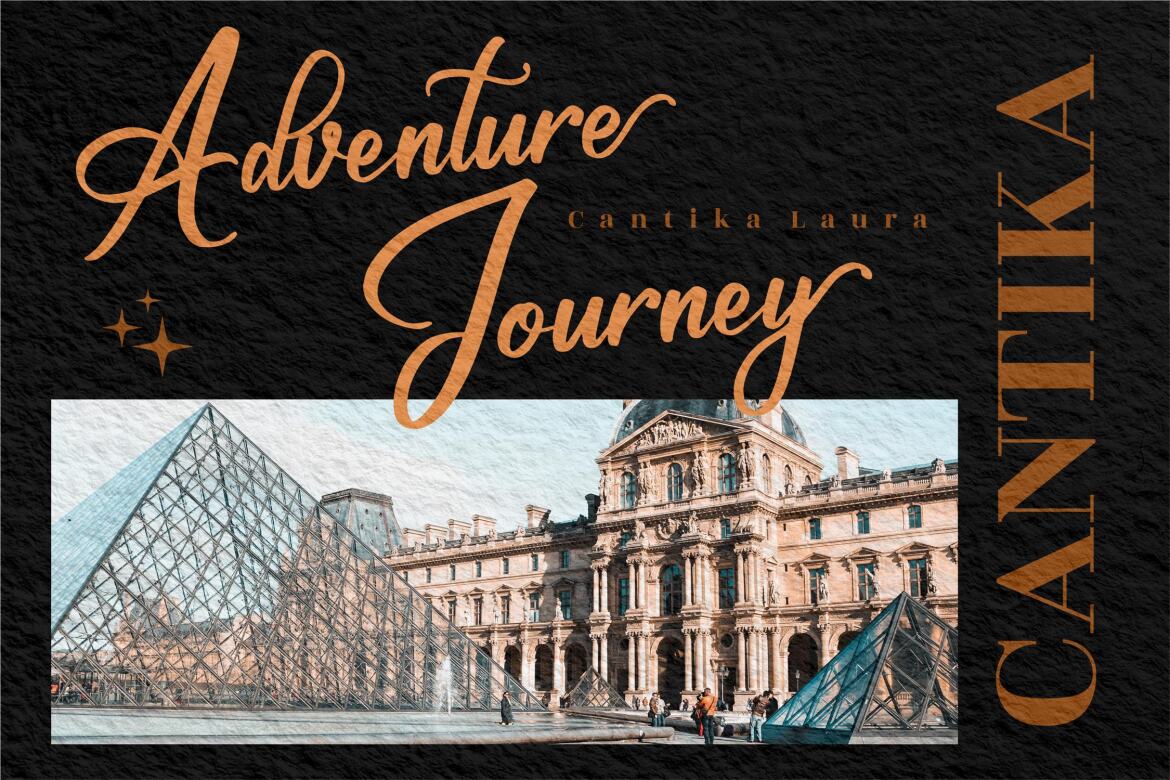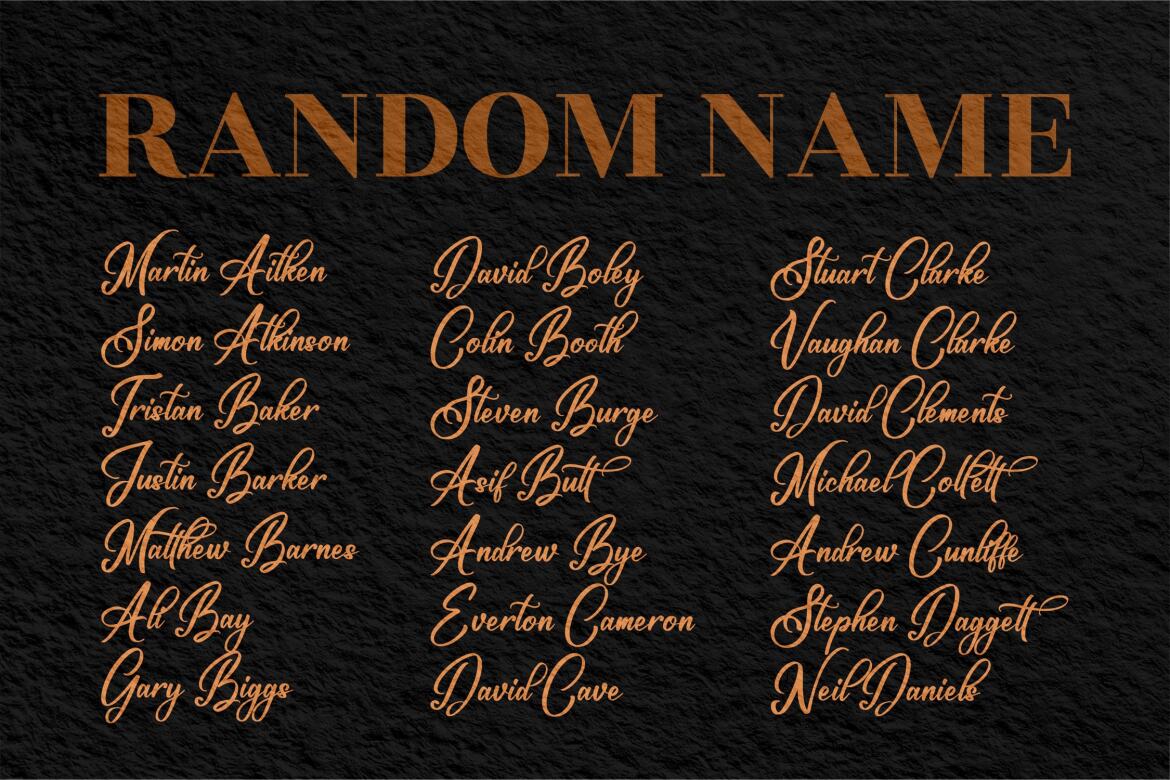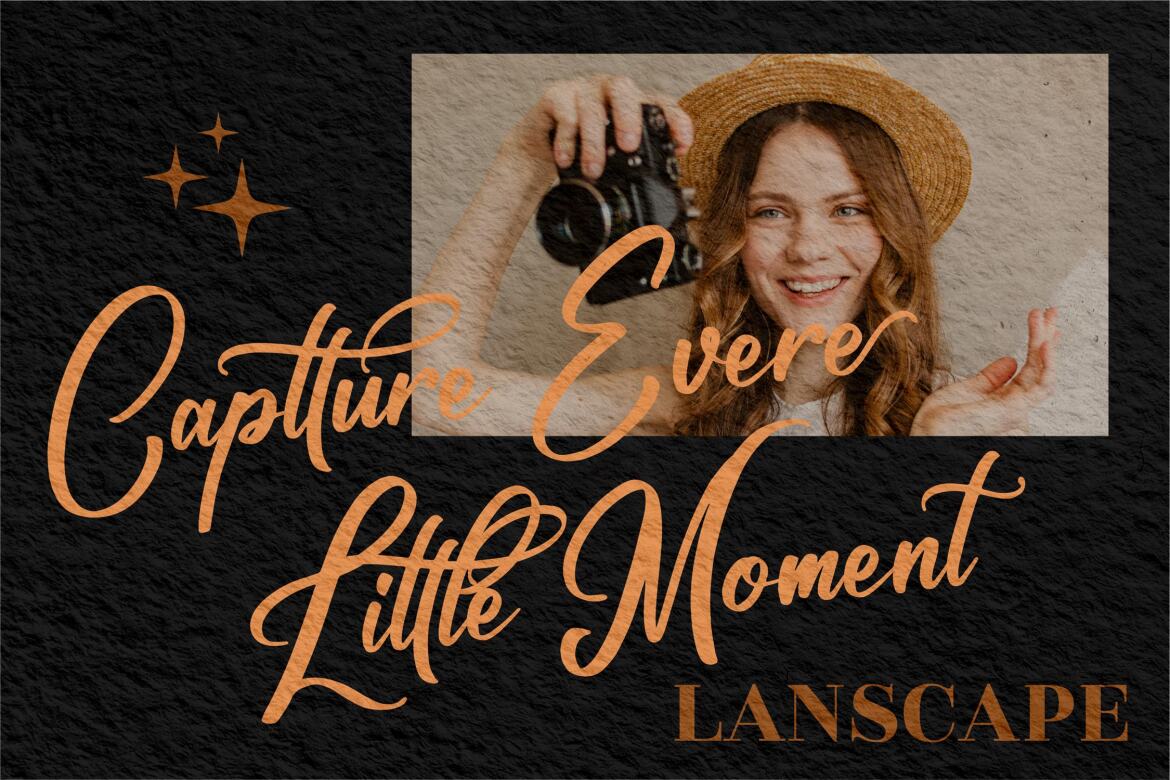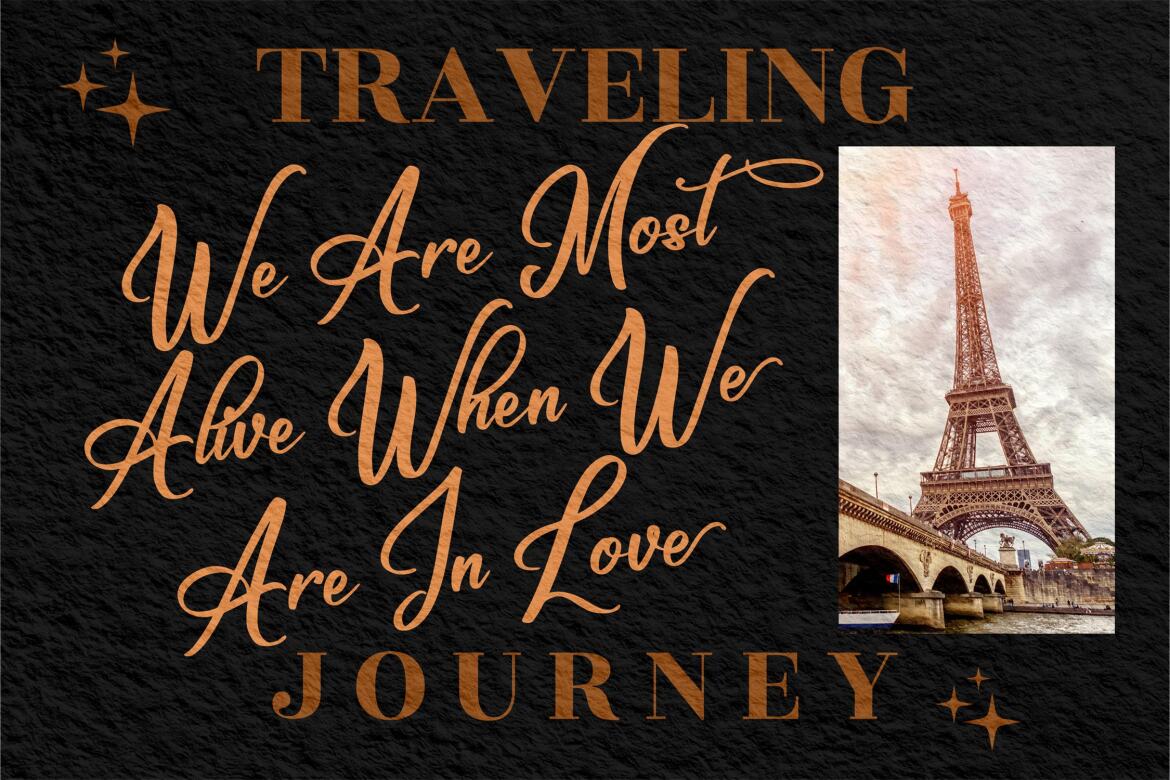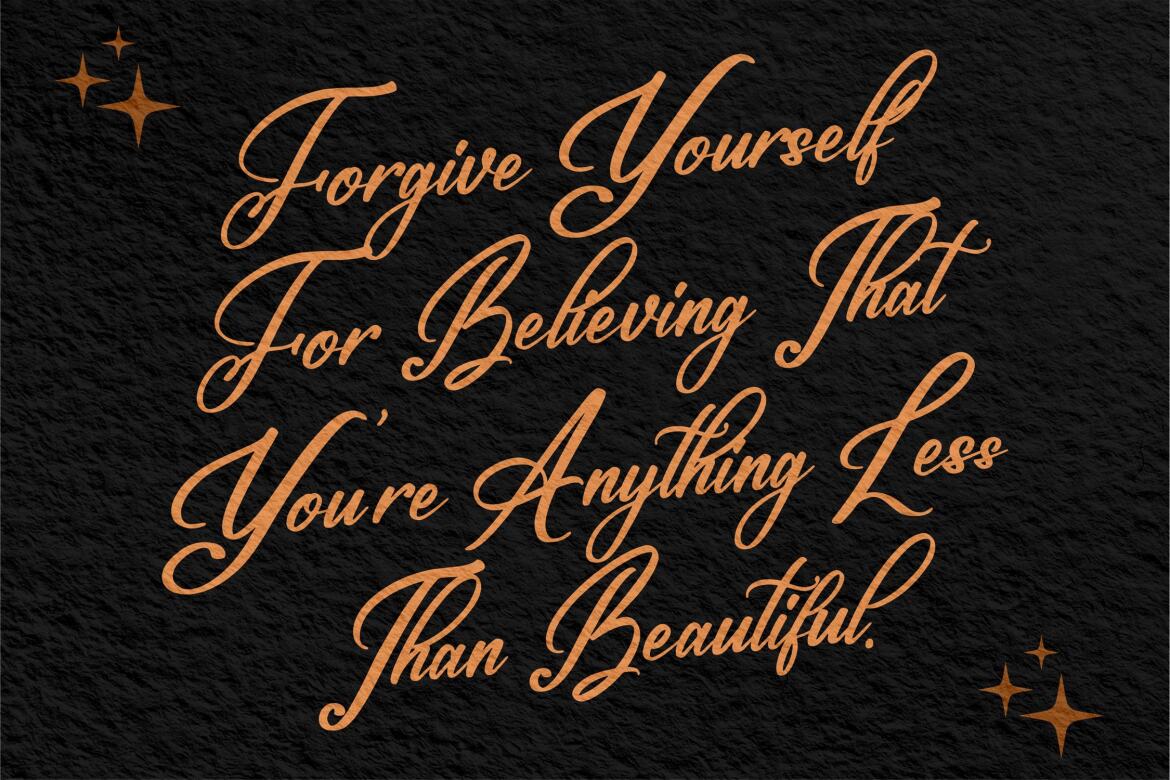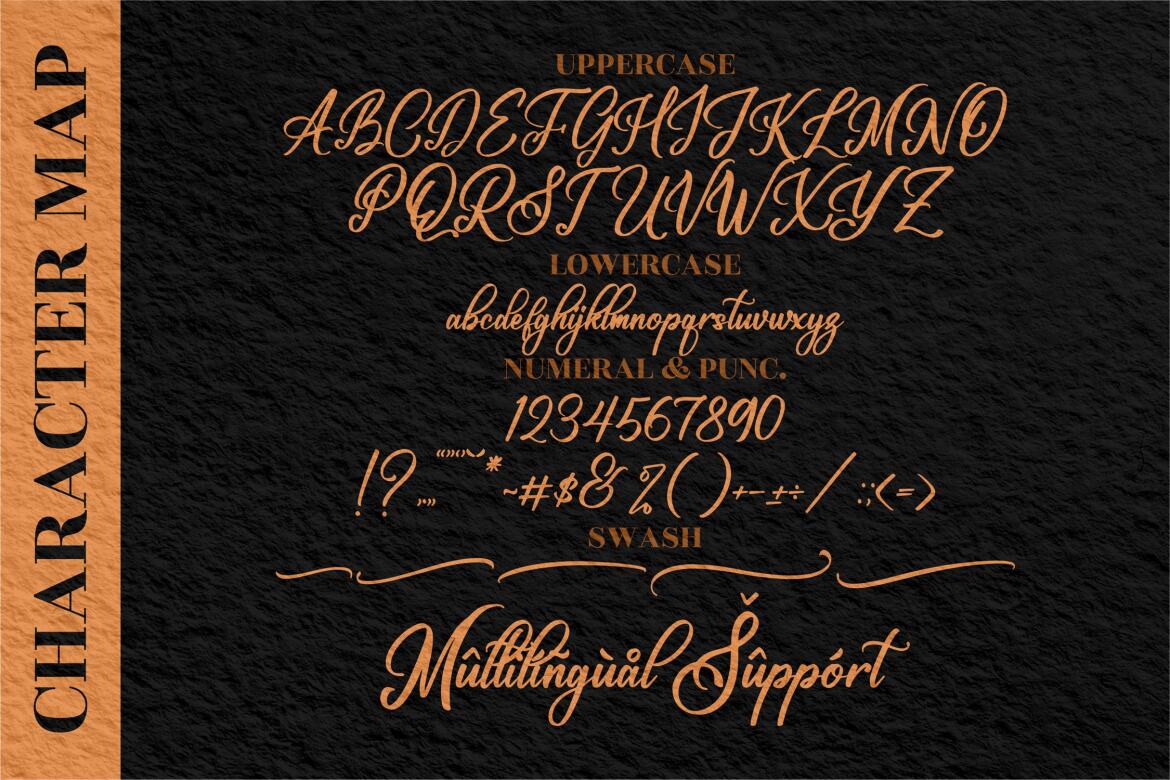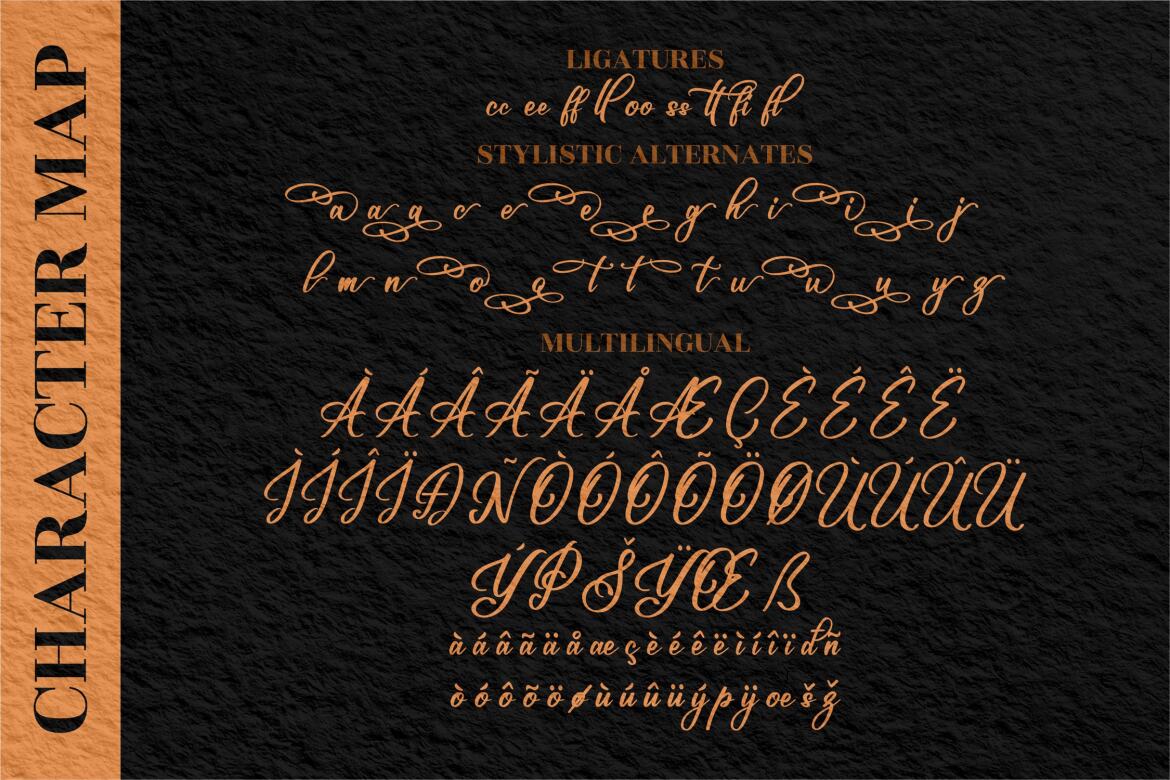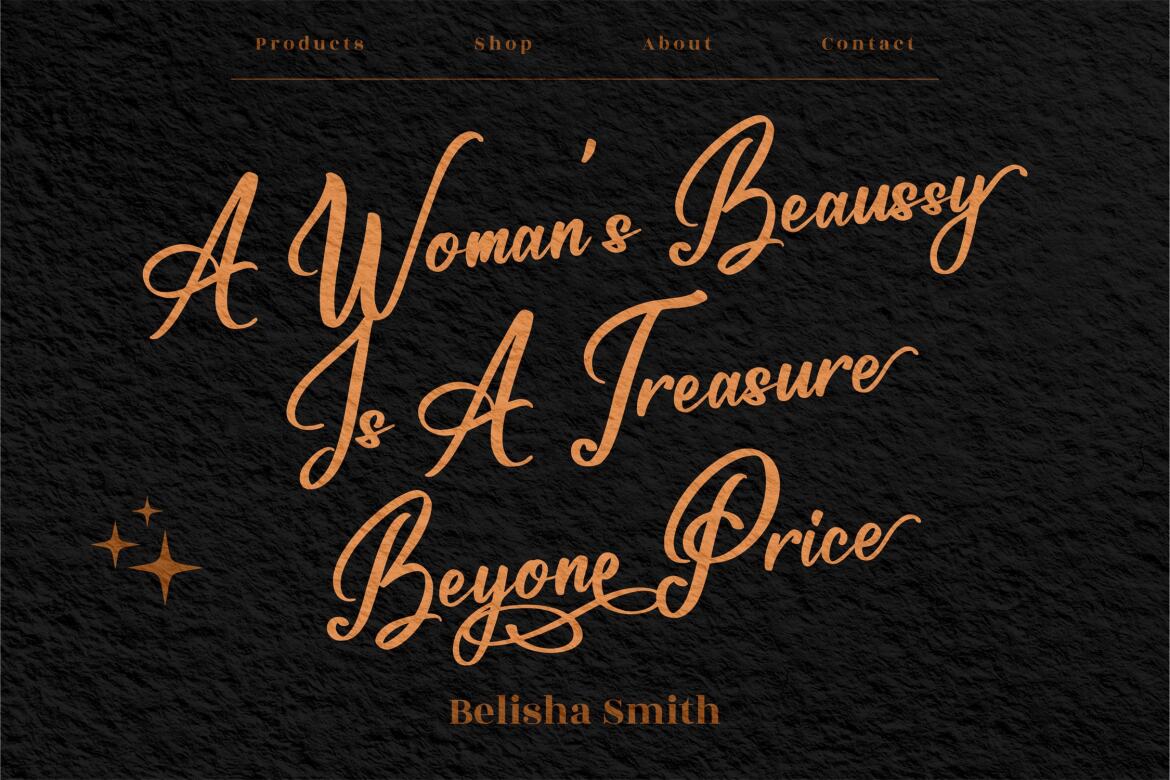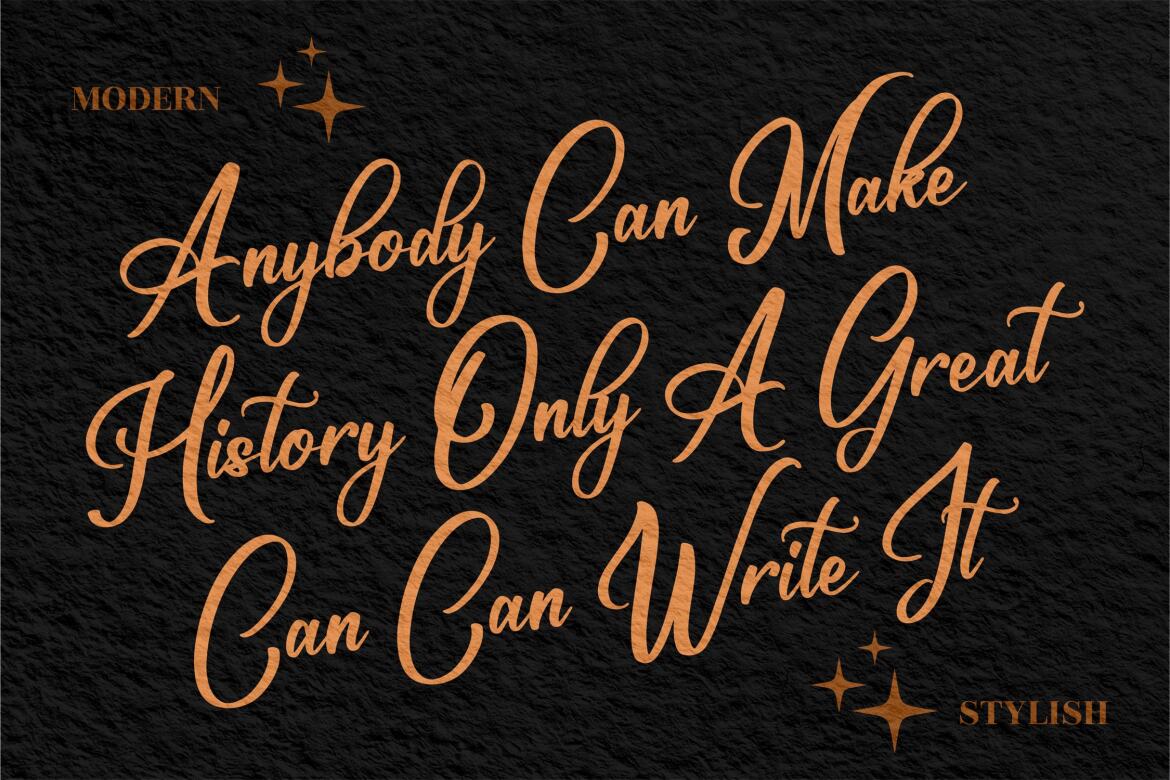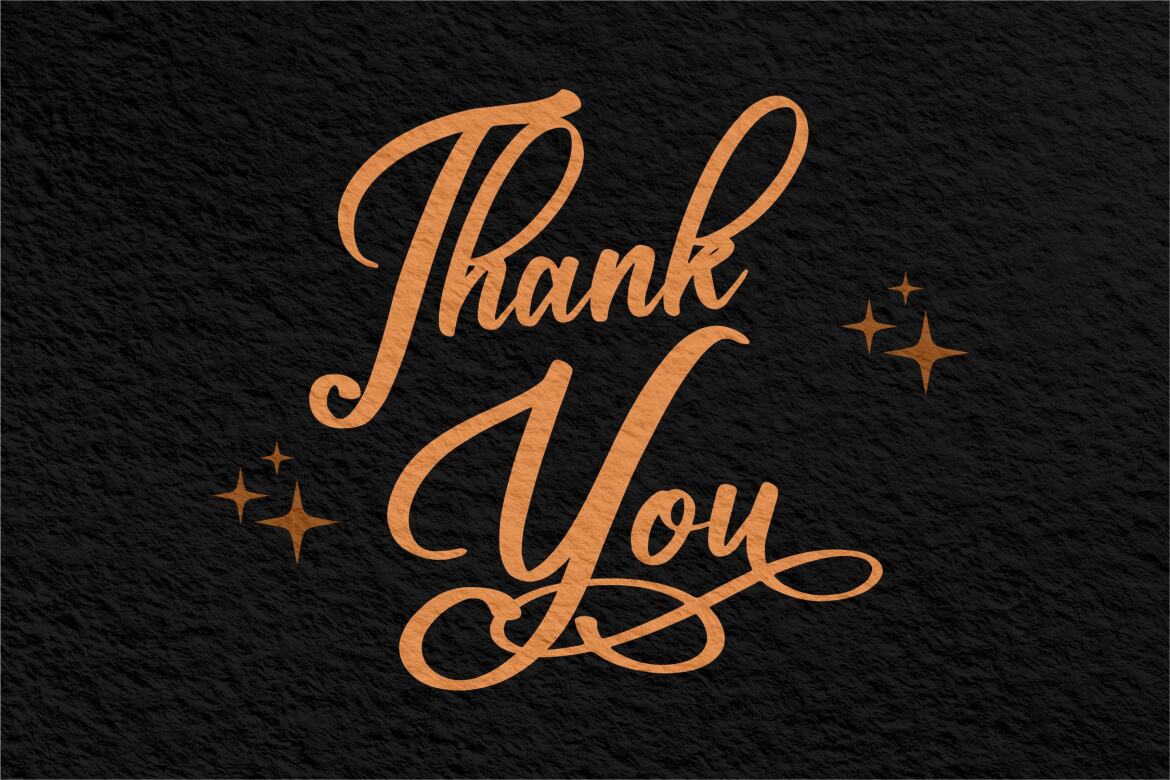
Maschester Signature - Free Font
Maschester Signature - Modern Calligraphy Font, from Perspectype Studio, is a premium signature font, suitable for any projects such as: logos, branding projects, homeware designs, product packaging, mugs, quotes, posters, shopping bags, t-shirts, book covers, name card, invitation cards, greeting cards, label, photography, watermark, special events, and all your other luxury projects that need a premium signature taste.